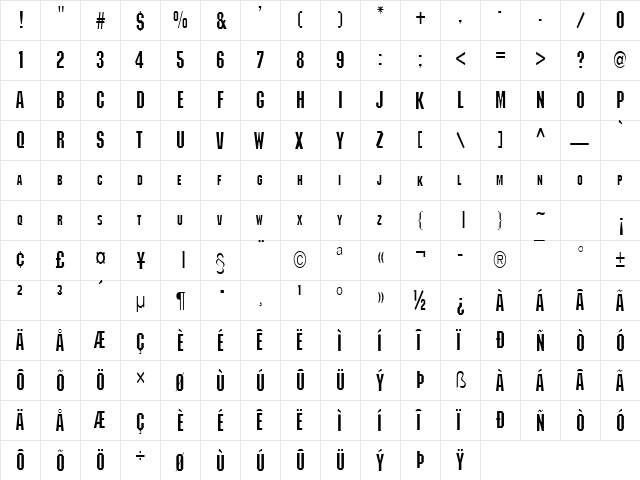
Block-Condensed Normal
Design Context for Block-Condensed Typeface
Block-Condensed is a composed and adaptable typeface that performs quietly and consistently across a wide range of design contexts. The condensed width makes it efficient for tight spaces without sacrificing legibility.
Pro Tip: Pair Block-Condensed with a font of contrasting weight or personality to build a more expressive typographic hierarchy.